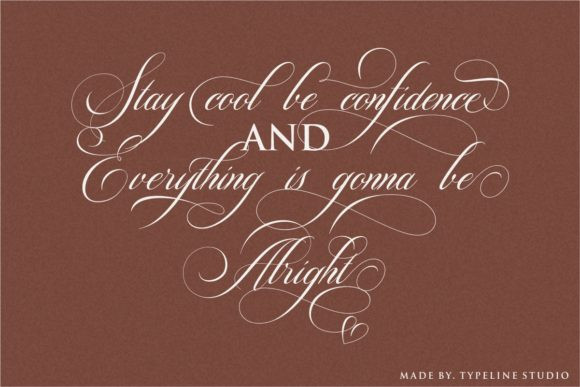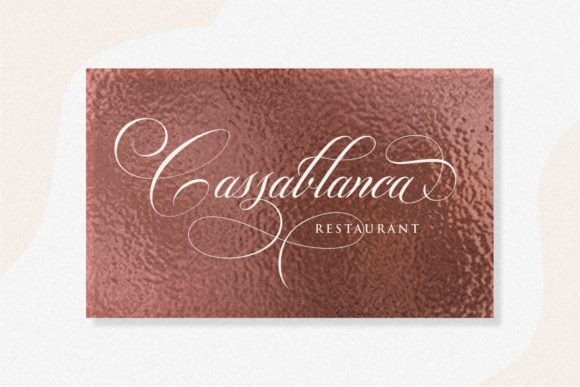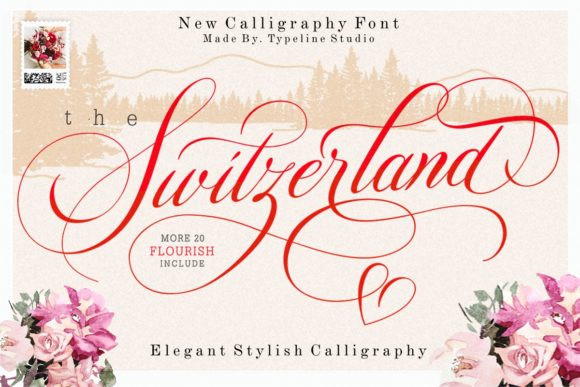
Switzerland Font
Inspired by classic calligraphy, Switzerland is an amazing handwritten font with incredible swashes. It will add a unique spark to any design idea!